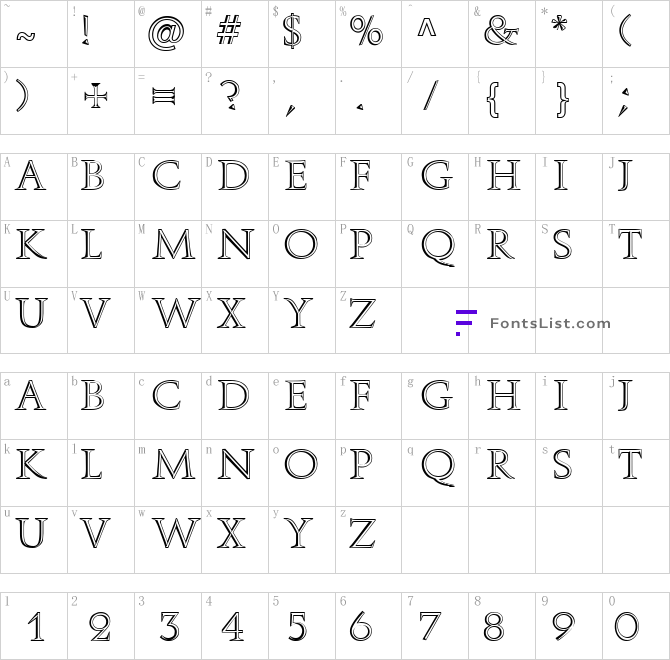
- Font Name:Aurelius DB
Aurelius-Regular-DB.ttf is a very beautiful artistic font, Aurelius-Regular-DB.ttf is widely used in the design and printing of various books and pictures,Aurelius-Regular-DB.ttf has a strong visual impact,Aurelius-Regular-DB.ttf is a commonly used font in newspapers, magazines and books, and is used in posters, e-commerce Poster design, store design, logo design, font design and other fields.Aurelius-Regular-DB.